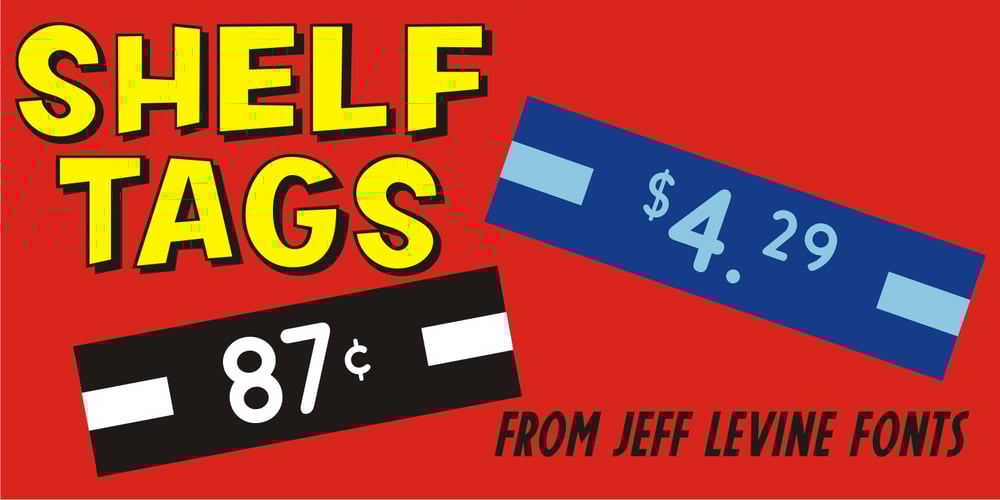
Shelf Tags JNL Font Family was designed by Jeff Levine and published by Jeff Levine. Shelf Tags JNL contains 1 styles and family package options. Before the mid-to-late 1970s, when retailers started to embrace UPC (universal price code) technology on a grand scale, pricing merchandise took on many forms. One method especially popular with variety stores (such as Woolworth’s, McCrory’s, Kress, etc.) were pre-printed price tags that came in small pads and were inserted into metal holders. Shelf Tags JNL recreates a vintage price tag based on examples seen online, and allows the user different ways to create their own vintage-style price tags. You can either utilize the round pen nib style numbers and price marks to place on any size or type tag, or type out prices using the reversed characters (white on black) along with the two end caps provided to form a complete tag unit. For the more adventurous, a complete blank tag is also provided in case the desire is to print a solid color tag background and [using the regular numbers] crate prices in custom colors. Two sets of smaller number (for “floating” cents prices) are also provided in regular numbers and reverse panels. As an extra bonus, there is a set of 1 through zero, dollar sign, cents sign and decimal point individual black-on-white outlined panels for making individual pricing numbers. The keyboard layout for the various characters is as follows: asterisk key – regular cents sign (no panel) dollar sign key – regular dollar sign (no panel) period key – regular decimal point (no panel) left and right parenthesis keys – panel end caps (to form price tags) colon key – reverse decimal point on black panel 1 thru 0 keys – regular numbers (no panels) A through J keys – small regular numbers (no panels) K and L keys – truncated [shorter width] end caps M through Y keys – individual price numbers (black on white with black border a through j keys – reverse numbers on black panels k key – reverse dollar sign on black panel l key – reverse cents sign on black panel m through v keys – reverse small numbers on black panels w through z keys – blank rectangular panels of varying widths equal sign key – full black panel price tag hyphen key – blank rectangular black panel based on the width of most number panels